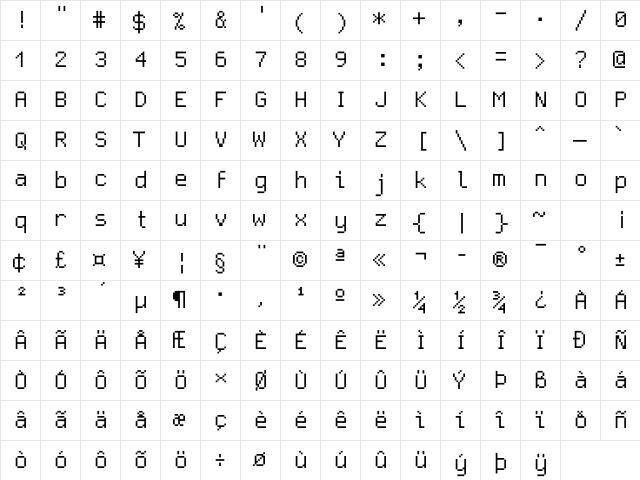
Complete GohuFont Nerd Font uni-14 glyph index. Displaying only characters natively supported by GohuFont Nerd Font uni-14 font.
GohuFont Nerd Font is a composed and adaptable typeface that performs quietly and consistently across a wide range of design contexts.